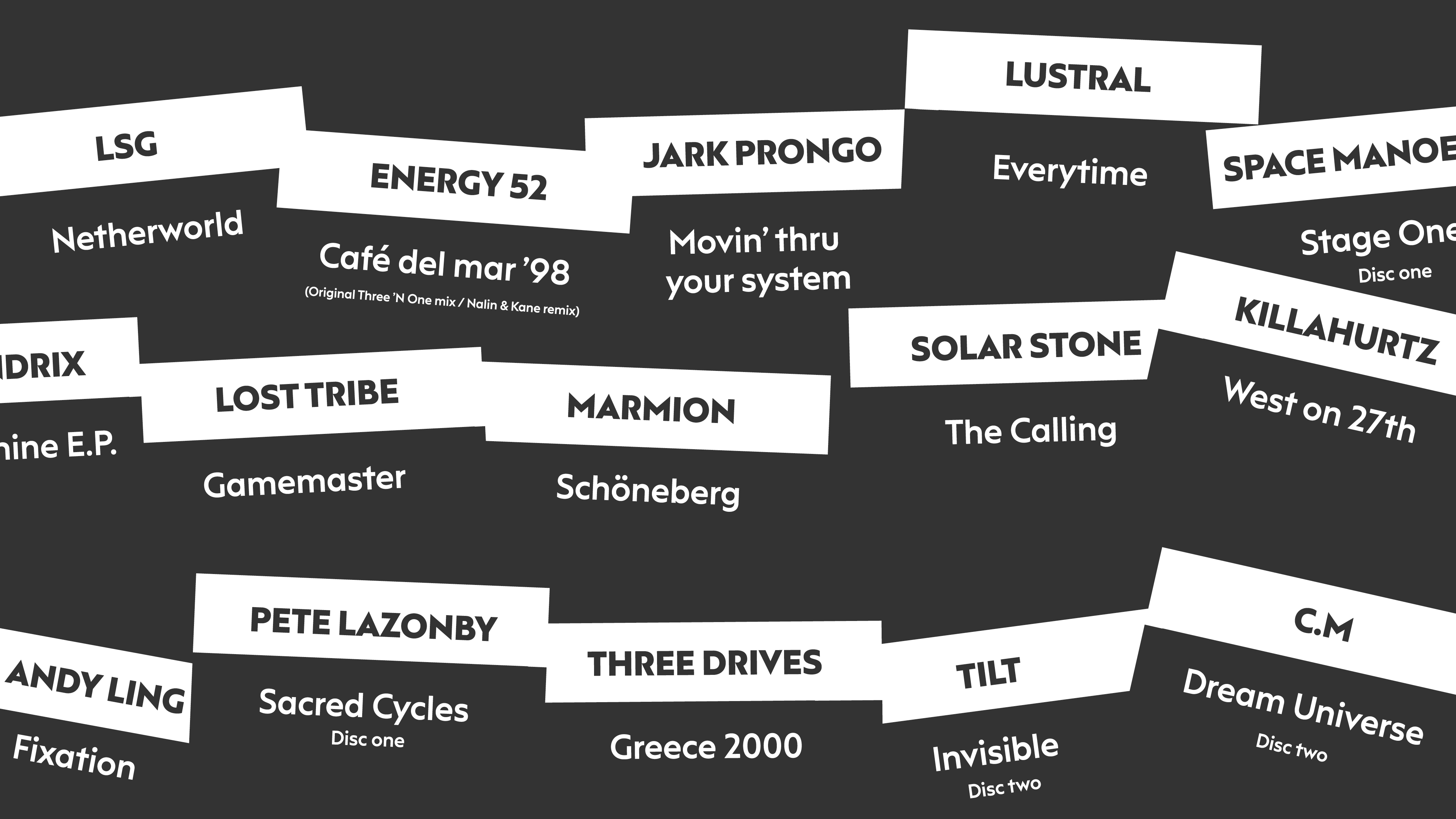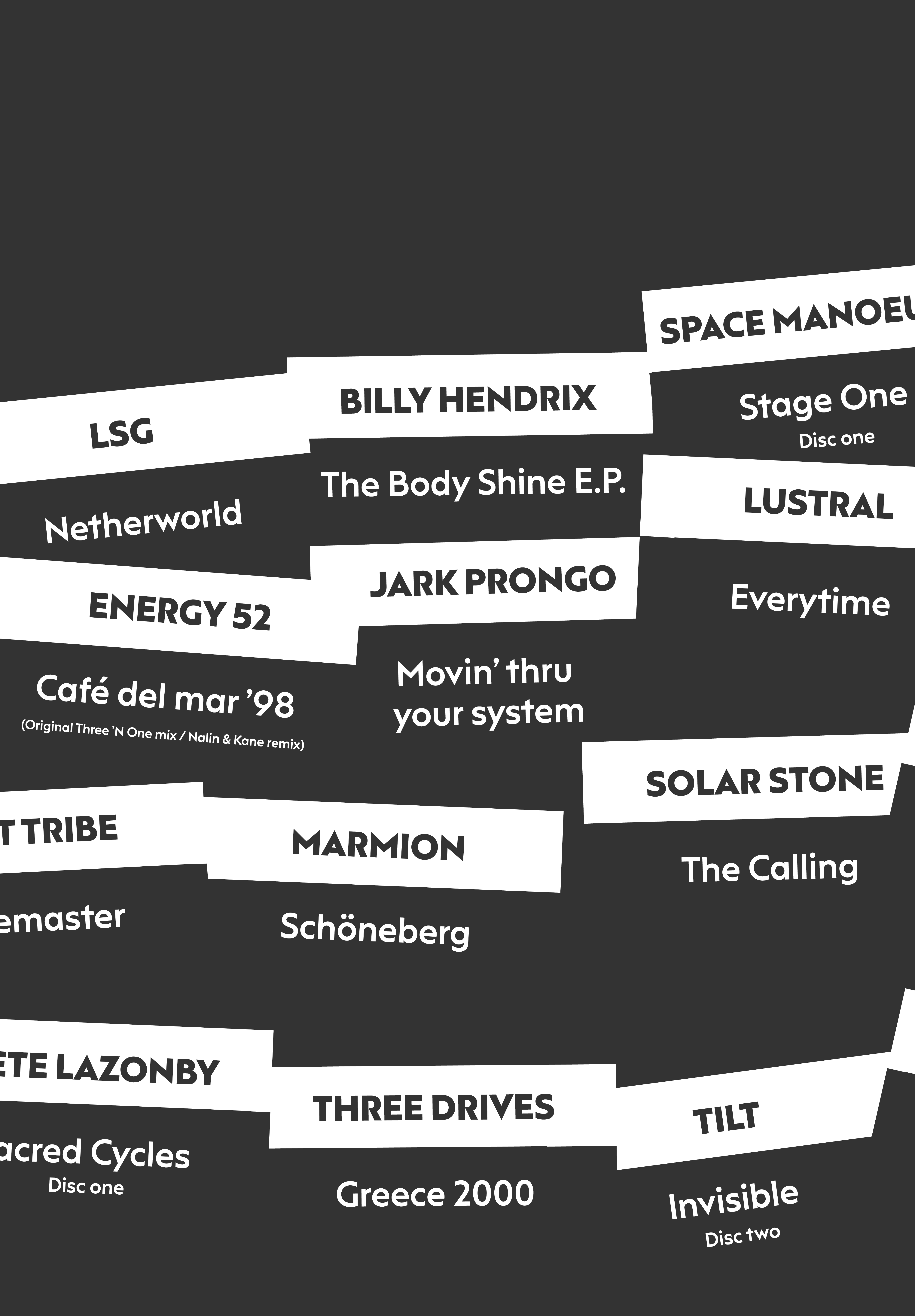
F37 Hooj®
F37 Hooj pays shameless tribute to designer Paul Renner’s timeless Futura typeface, along with other famous German sans fonts like Erbar, Kabel and Super Grotesk.